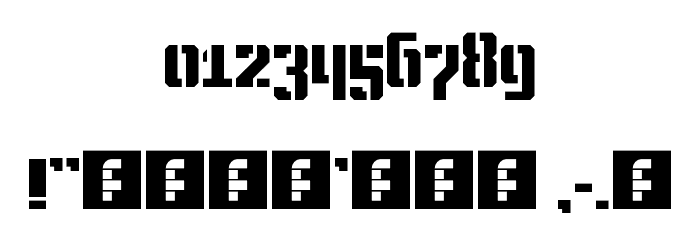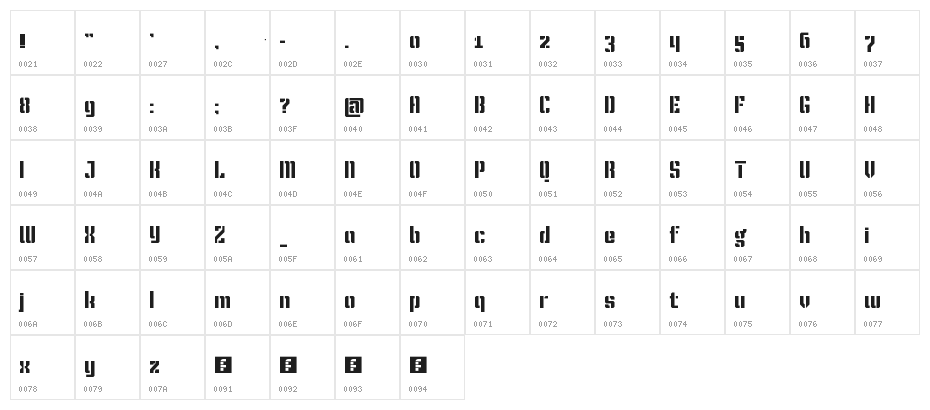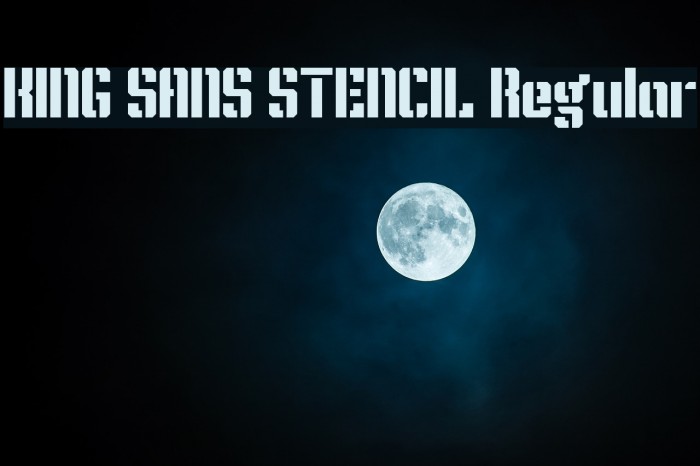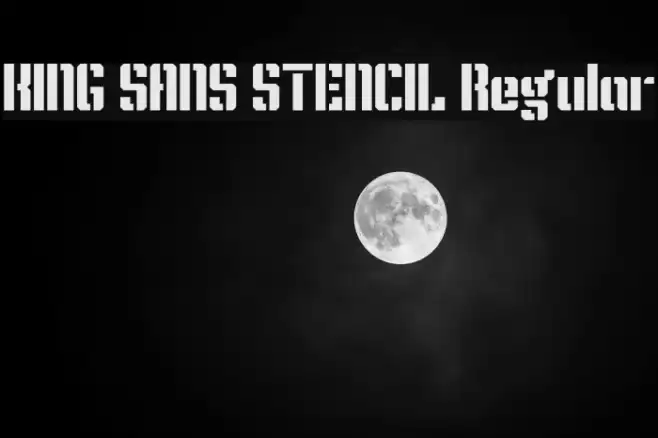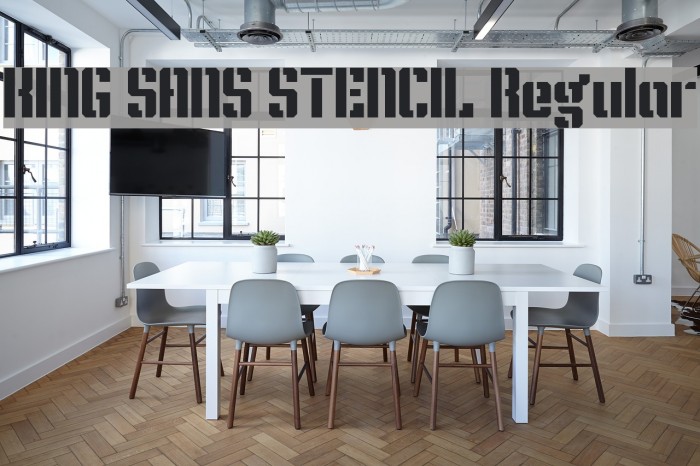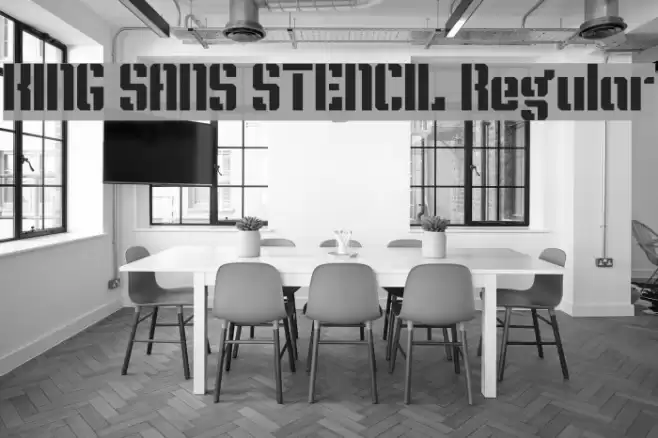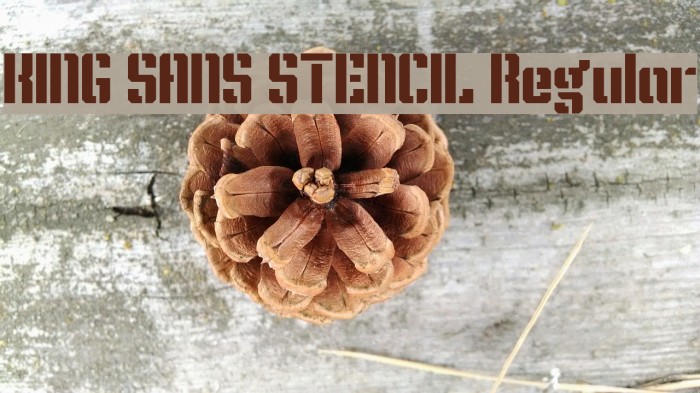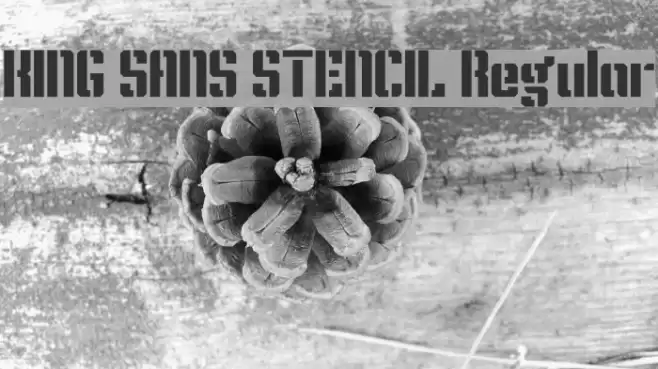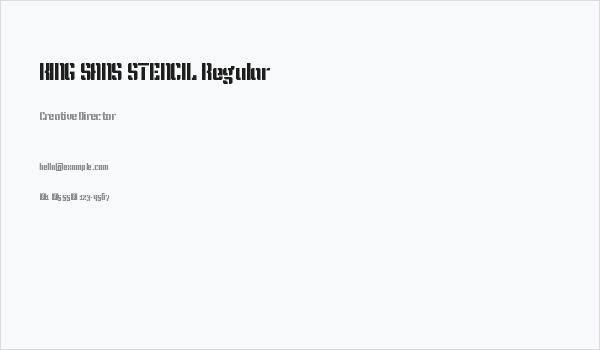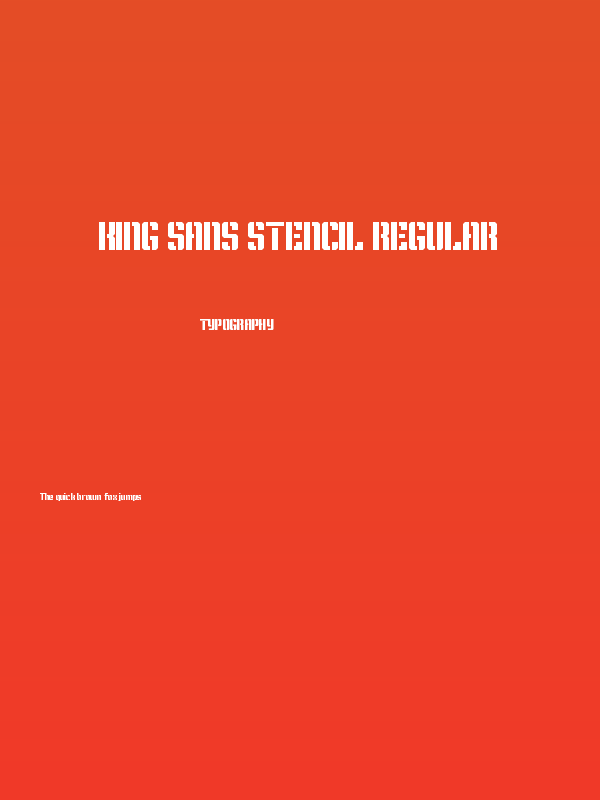
KING SANS STENCIL Regular Font
KING SANS STENCIL Regular Description
This font features a bold, geometric design with a distinct stencil effect, characterized by breaks in the strokes that create a modern, industrial look. The uppercase and lowercase letters maintain a consistent width, giving the font a uniform appearance. The numbers and special characters follow the same stencil style, ensuring a cohesive look across all glyphs. The font's strong, angular lines and high contrast between thick and thin strokes make it highly legible and impactful, ideal for attention-grabbing designs.